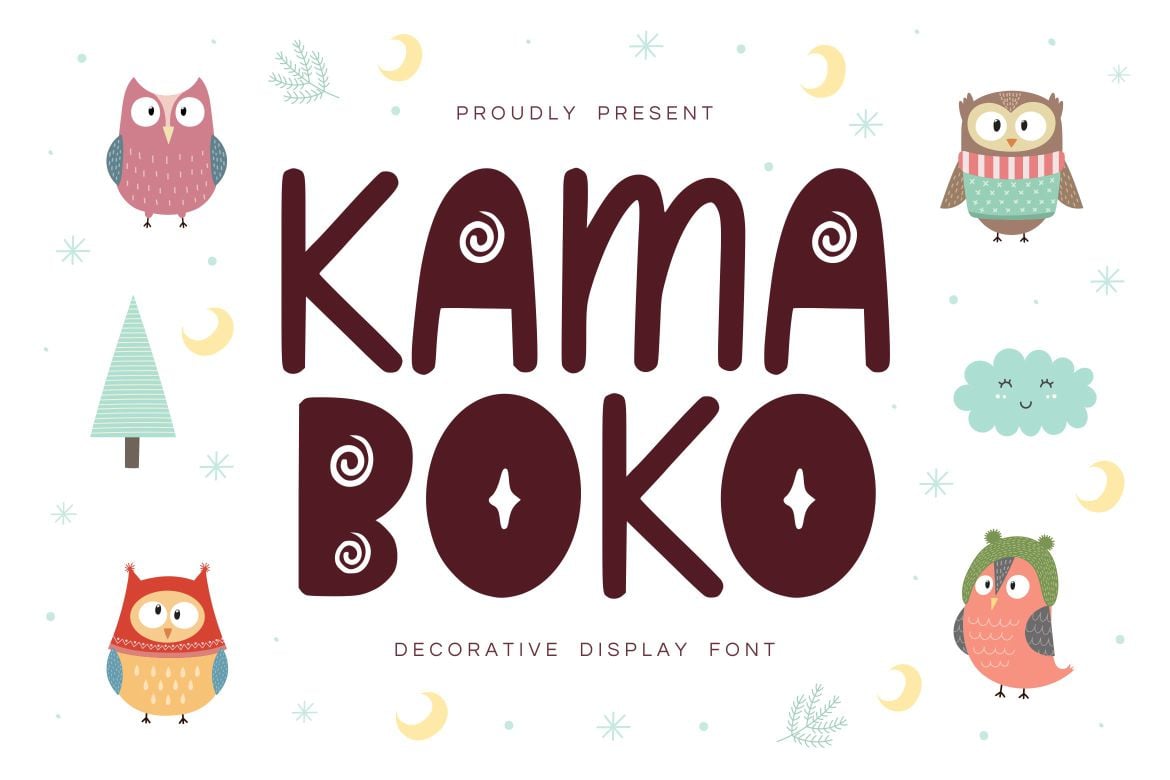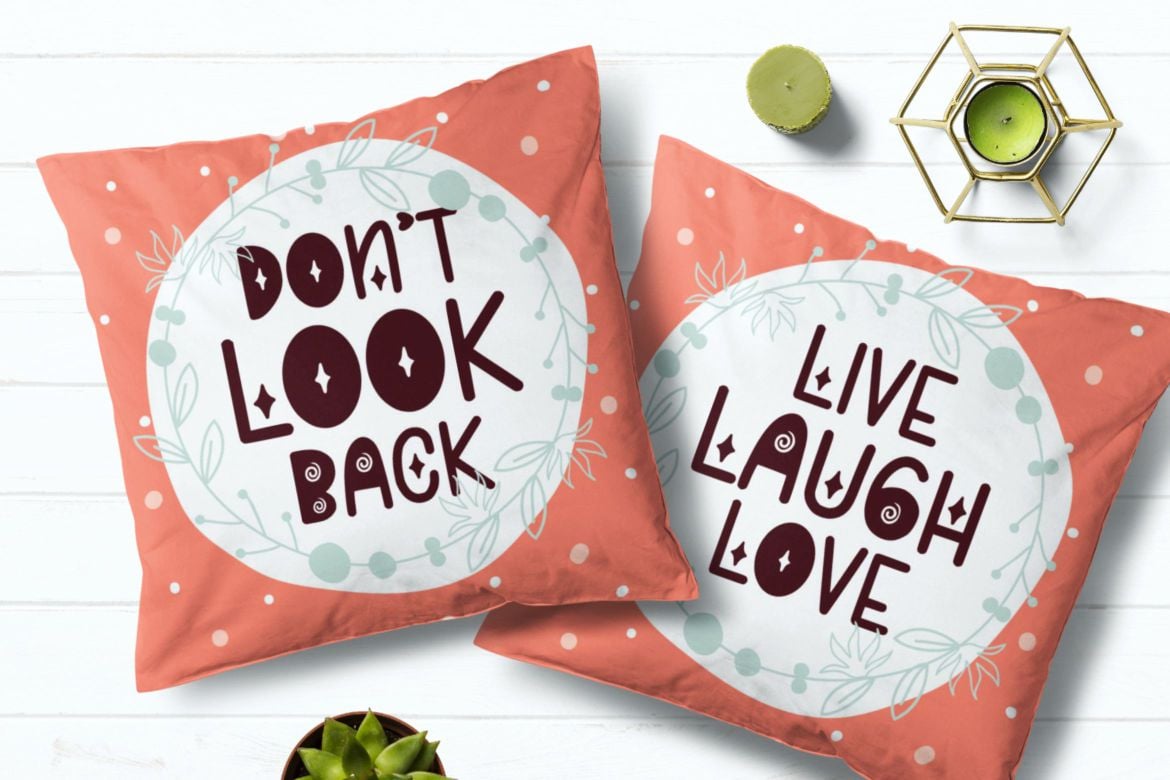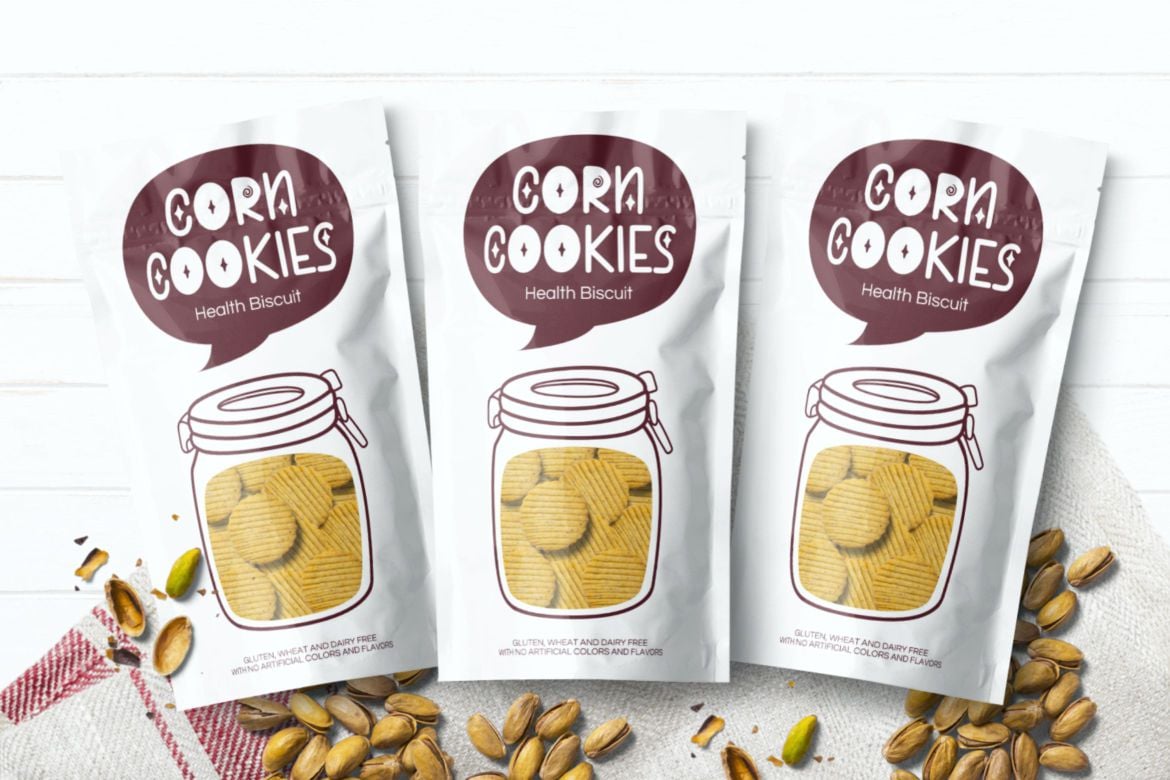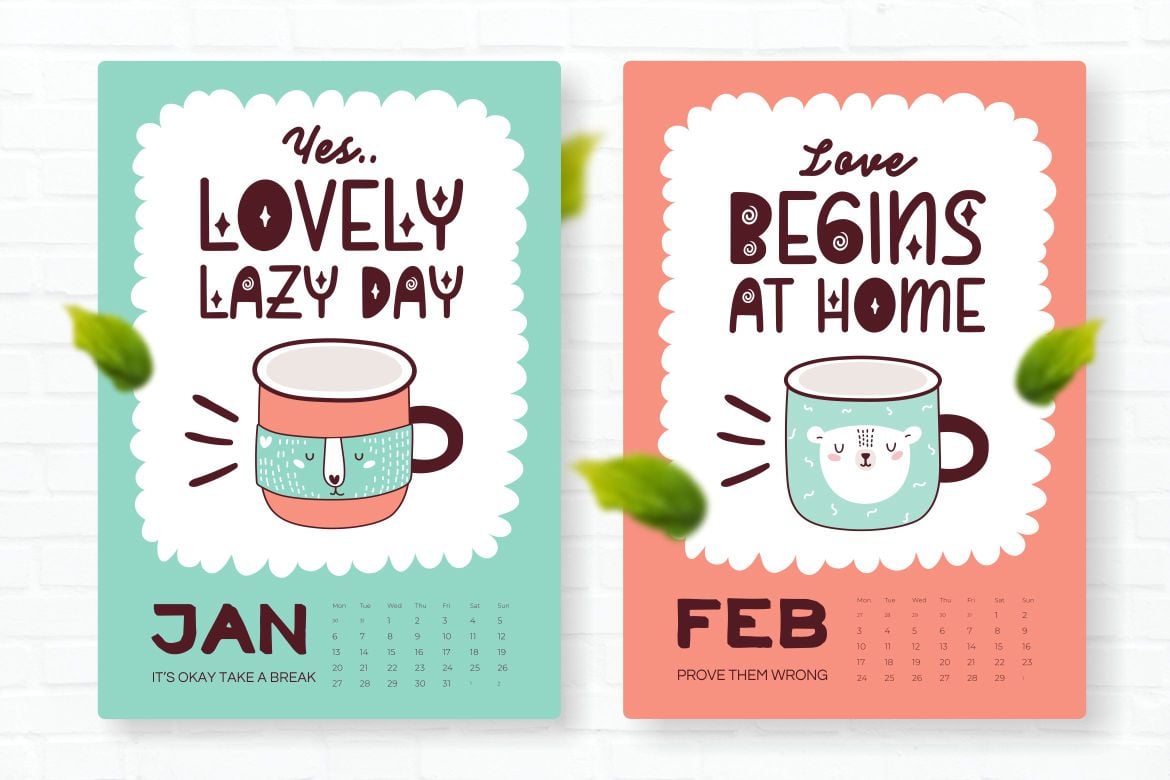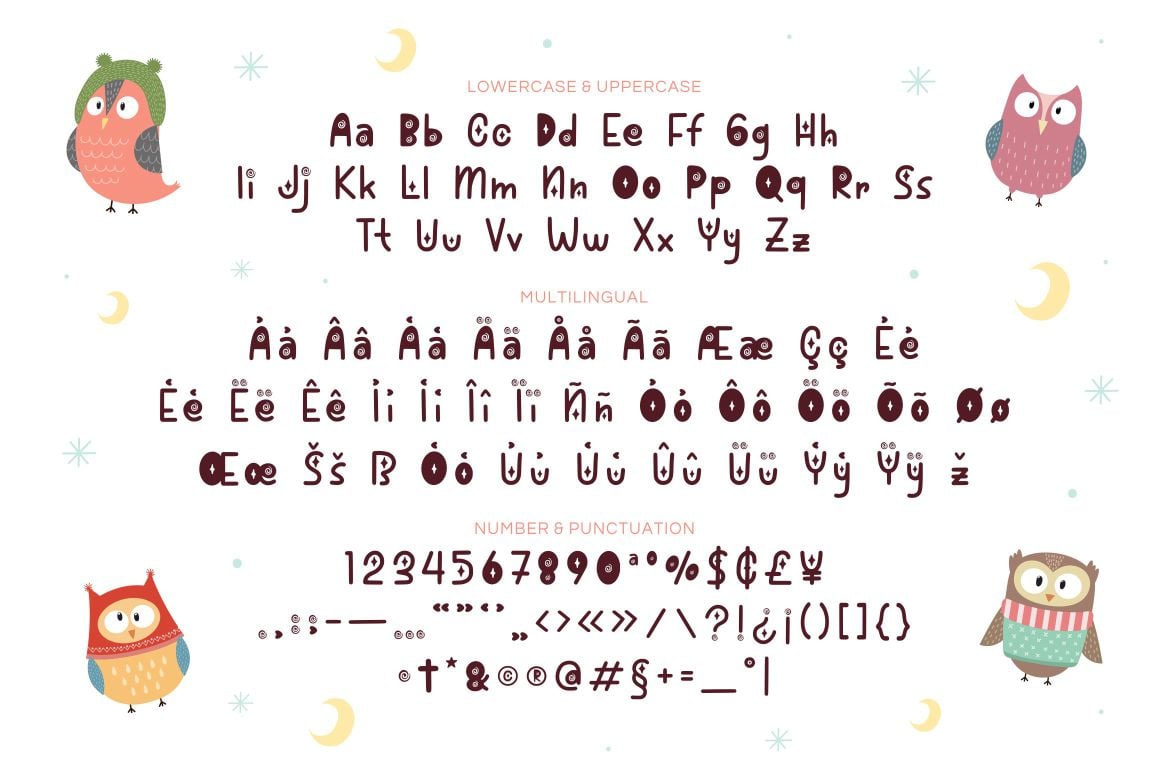
Kamaboko – Decorative Display Font
Hey guys! Today I want to present to you with Kamaboko decorative display font, this fun font is a perfect choice if you want to give your design a playful and childish look. This is a cute font that would be perfect for the cutest cards, posters, flyers, calendar, packaging, T-shirts, invitations and so much more!